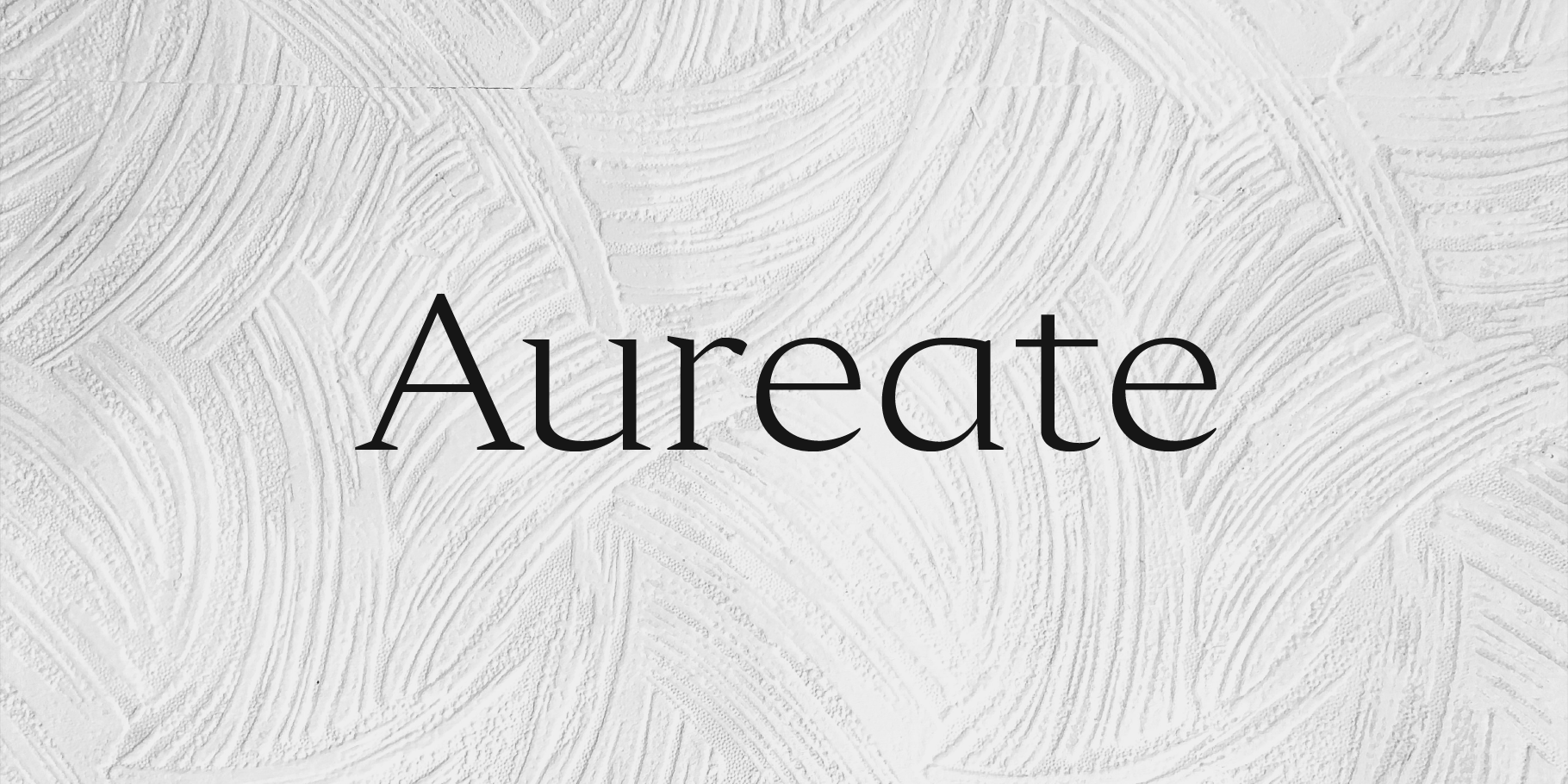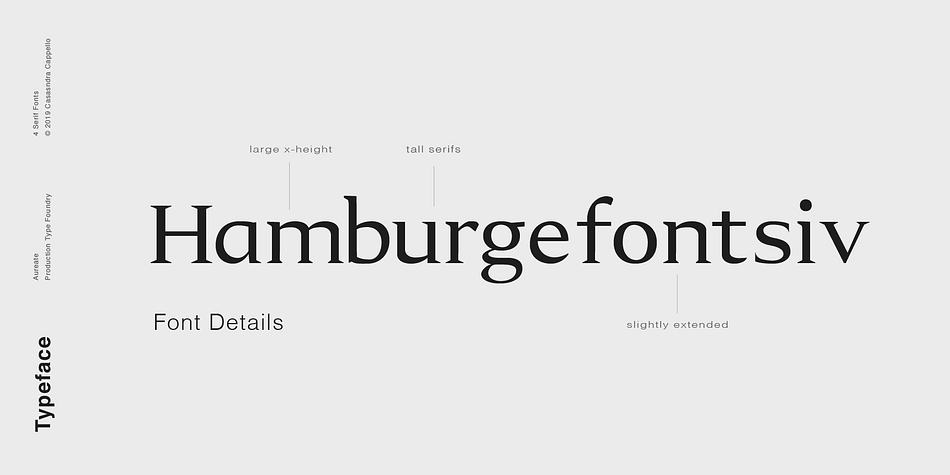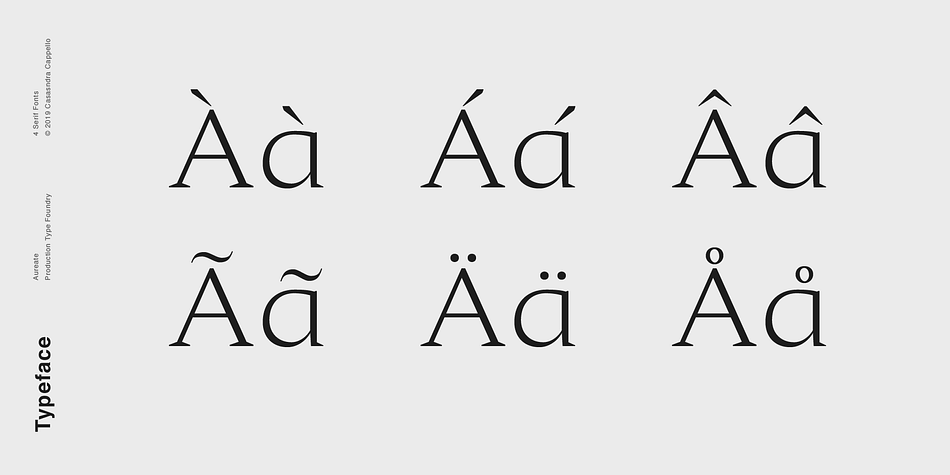
Designed by Cassandra Cappello, Aureate is a serif font family. This typeface has four styles and was published by Cappello Designs.
Aureate is a classic, roman style, serif typeface. It’s an elegant Transitional typeface, characterized by the bracketed serif and up-right position. The characters have a combination of roundedness and sharpness that gives it a strong yet sophisticated look.
It has a little bit of personality and can be used for body copy, but was mainly created for headers. This font family includes all Latin characters (including accents), numbers, special characters, and punctuation.